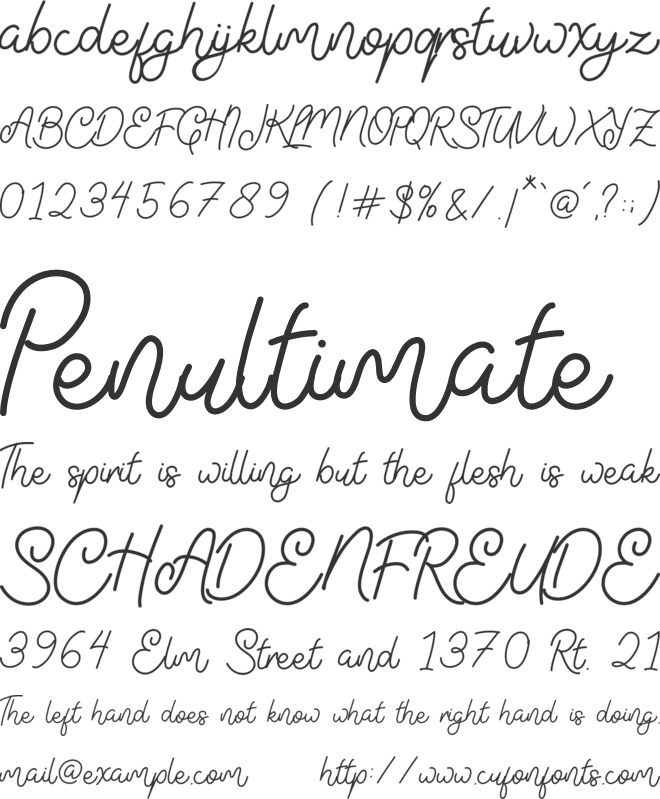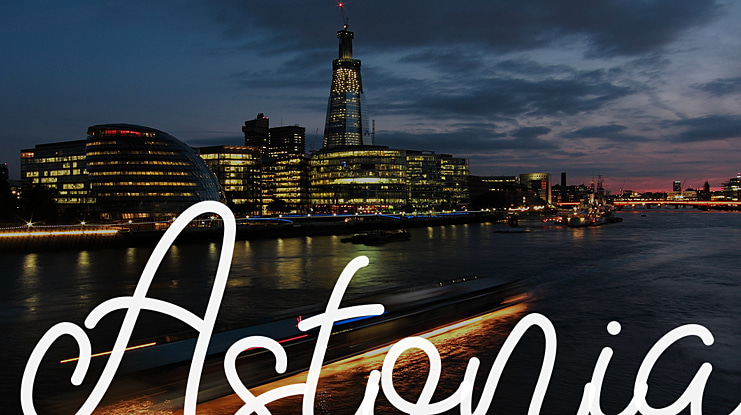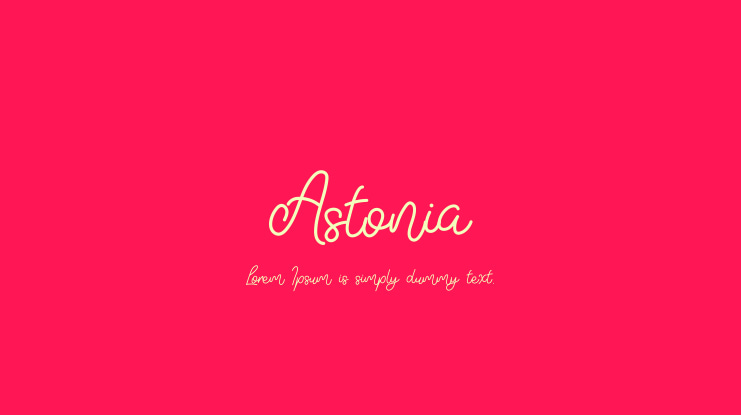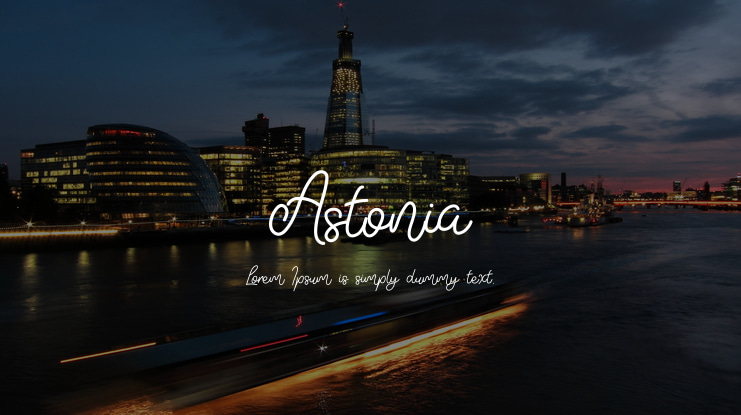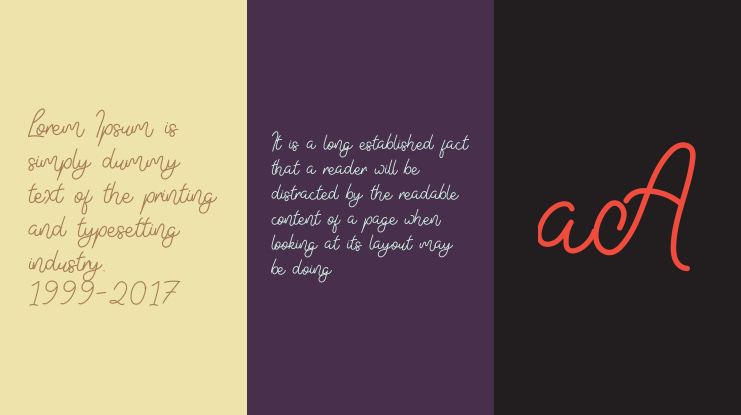
Astonia Font Family
Astonia Script Typeface. A collection of letters and numbers suitable your projects also great for Logotype, Branding Design, Logo Design, Digital Lettering Arts, T-Shirt/Apparel, Poster, Magazine, Signs, Advertising Design, and any design needs.